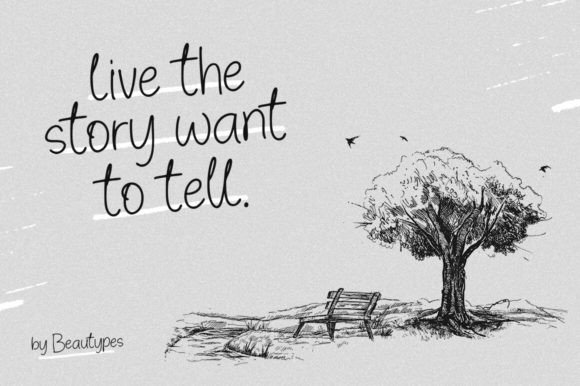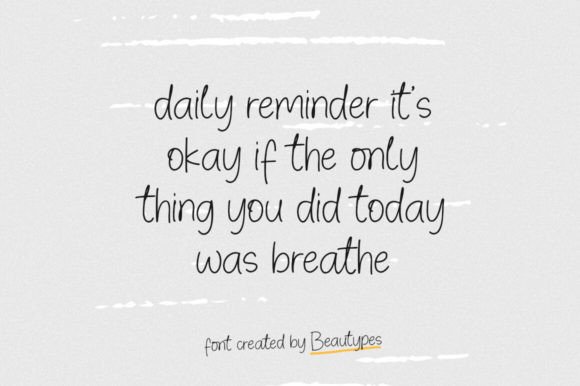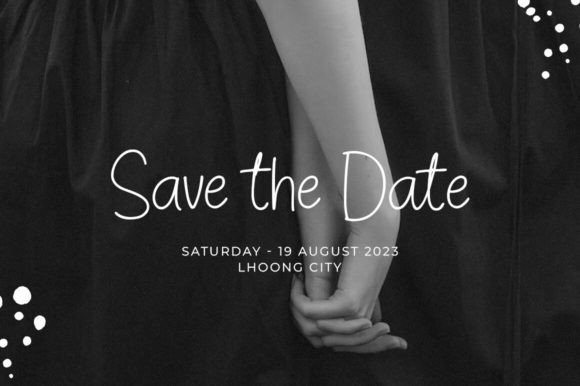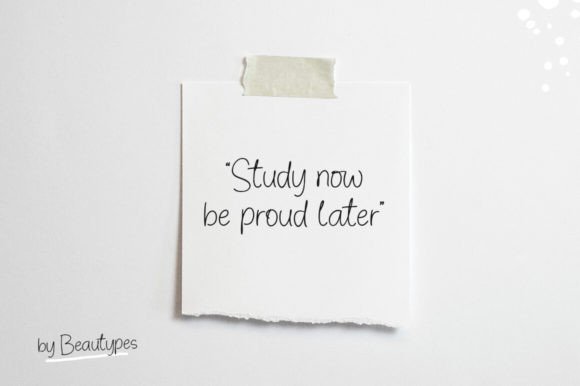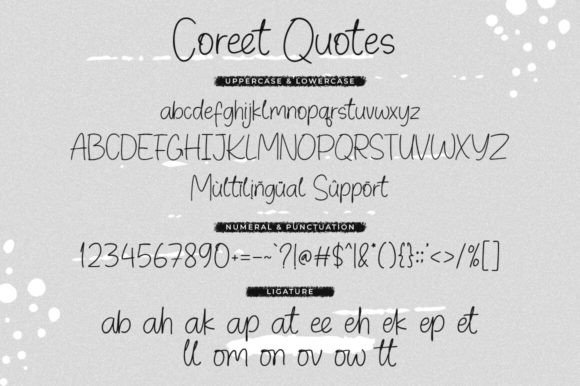
Introducing Coreet Quotes Font: Elevate Your Thematic Quotes with a Personal Touch
In the realm of digital design, typography plays a pivotal role in conveying messages, evoking emotions, and capturing the essence of a brand or idea. For designers, crafters, and social media enthusiasts, finding the perfect font can make all the difference. This is where Coreet Quotes Font comes into play—a handwritten typeface specifically designed for thematic quotes. Whether you’re looking to create shareable Instagram posts, elegant invitations, or unique stationery, Coreet Quotes is poised to become your go-to font.
The Charm of Handwritten Typography
Handwritten fonts have a unique charm that digital and sans-serif fonts often can’t replicate. They bring a level of personalization and warmth, making the text feel more approachable and engaging. Coreet Quotes Font leverages this charm, offering a distinctive and stylish way to present thematic quotes. Its handwritten nature ensures that each letter and word adds a personal touch to your designs, setting them apart in a crowded digital landscape.
One of the standout features of Coreet Quotes Font is its versatility. It’s not just limited to thematic quotes; its elegant and clear design makes it suitable for a wide range of projects. Here are a few ways you can use Coreet Quotes:
- Instagram Posts: Create visually appealing and shareable quotes that resonate with your audience. The font’s clarity and style ensure that your messages stand out on the feed.
- Invitations: Whether it’s a wedding, birthday, or any other celebration, Coreet Quotes can add a touch of elegance and warmth to your invitations.
- Stationery: Elevate your stationery designs with a font that exudes personality and style. From greeting cards to thank you notes, Coreet Quotes can make your correspondence more special.
- Branding: For brands looking to add a personal touch to their messaging, Coreet Quotes can be a valuable asset. It’s perfect for creating slogans, taglines, or any textual content that requires a distinctive look.
Why Choose Coreet Quotes Font?
With numerous fonts available, what makes Coreet Quotes stand out? Here are a few reasons why designers and crafters are gravitating towards this font:
- Readability: Despite its handwritten nature, Coreet Quotes boasts excellent readability. This ensures that your quotes and messages are not only stylish but also easily comprehensible.
- Uniqueness: In a sea of generic fonts, Coreet Quotes offers a breath of fresh air with its unique style. It can help your designs stand out and leave a lasting impression.
Tips for Using Coreet Quotes Font
To make the most of Coreet Quotes Font, consider the following tips:
- Pair it Wisely: Combine Coreet Quotes with other fonts to create visual interest. A contrasting font for headings and Coreet Quotes for body text can work well.
- Adjust Size and Color: Play with the size and color of the text to highlight key points or to fit your brand’s aesthetic.
- Experiment with Effects: Don’t be afraid to add effects like shadows, outlines, or textures to give your text an extra dimension.
| Author | Beautypes |
Coreet Quotes Font is more than just a typeface; it’s a tool that can elevate your thematic quotes and designs. Its unique blend of style, readability, and versatility makes it an excellent choice for designers and crafters looking to add a personal touch to their work. Whether you’re creating social media content, invitations, or stationery, Coreet Quotes Font can help you achieve your design goals with flair. So, why wait? Dive into the world of Coreet Quotes and discover how this beautiful handwritten font can transform your designs.